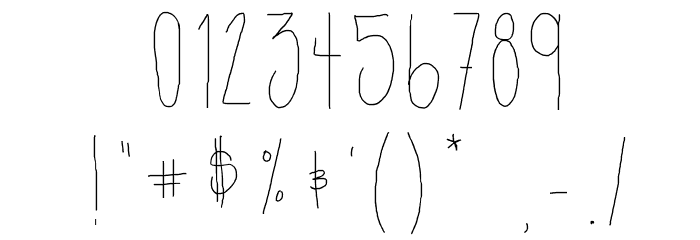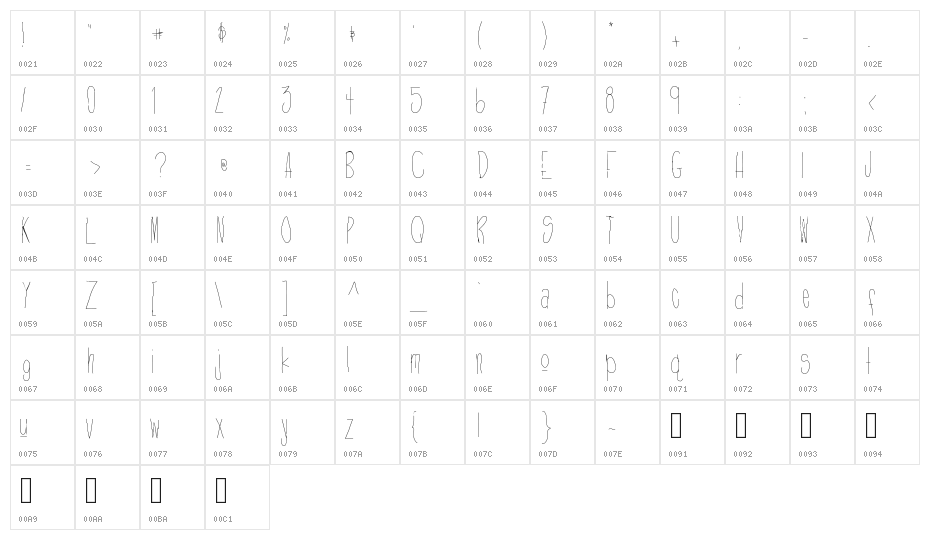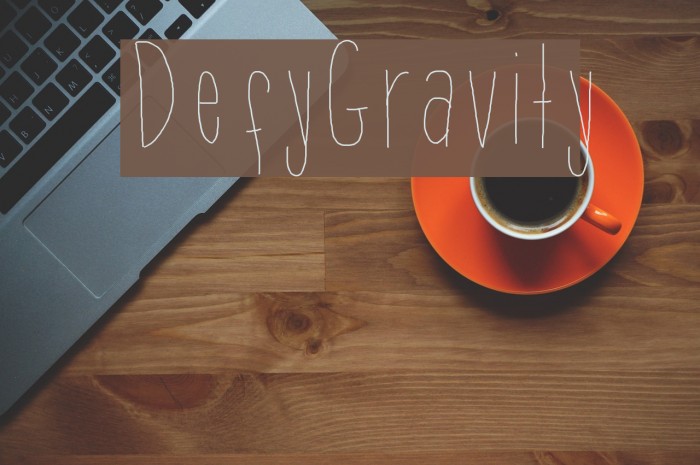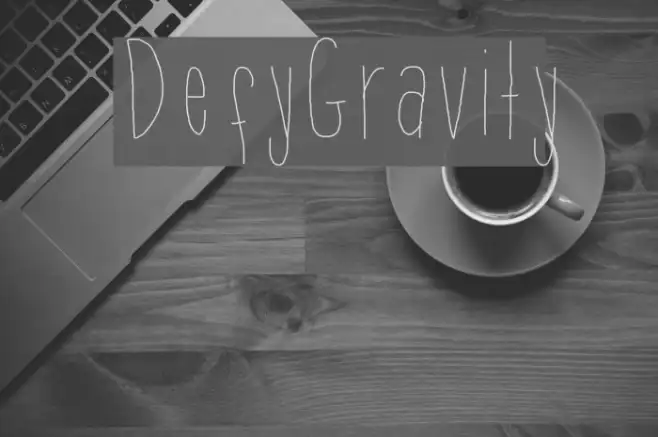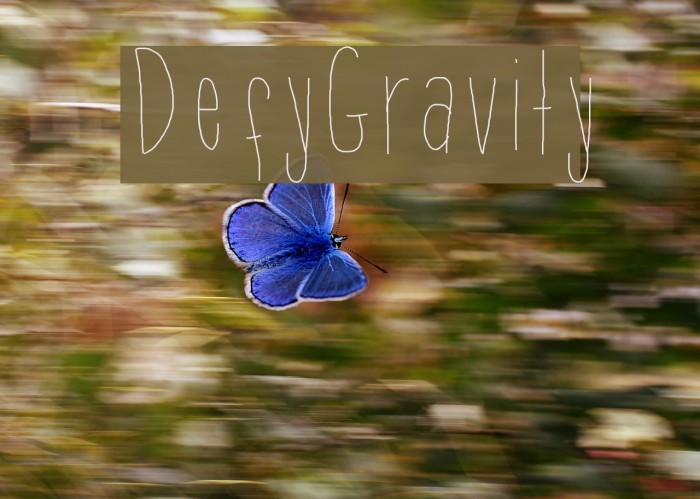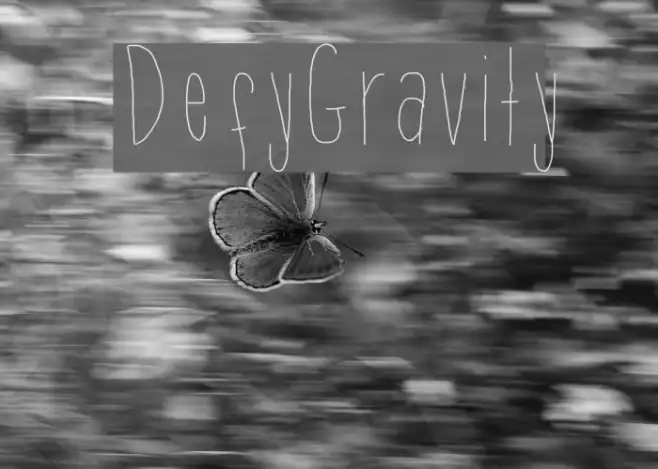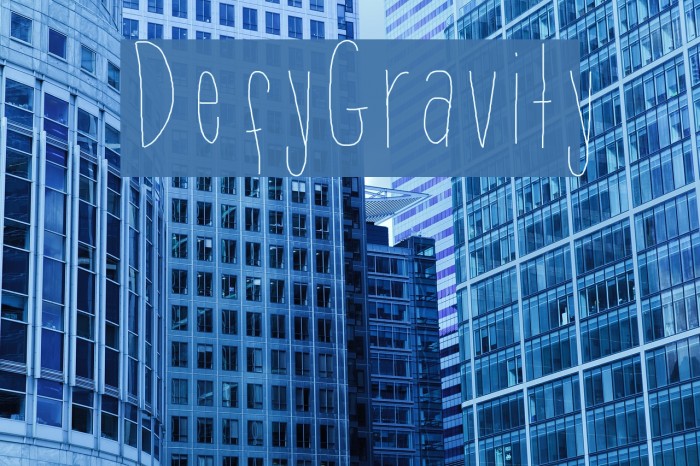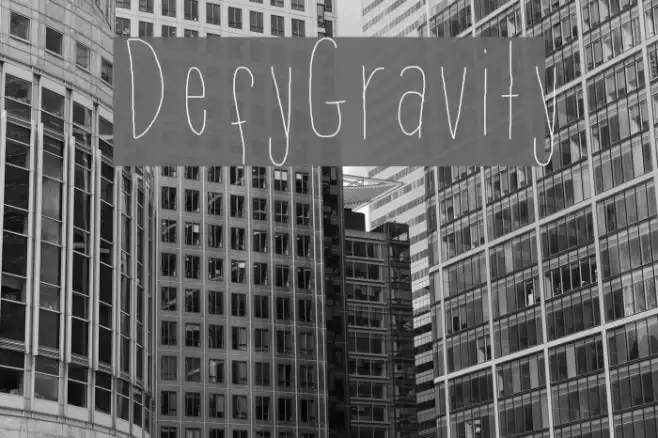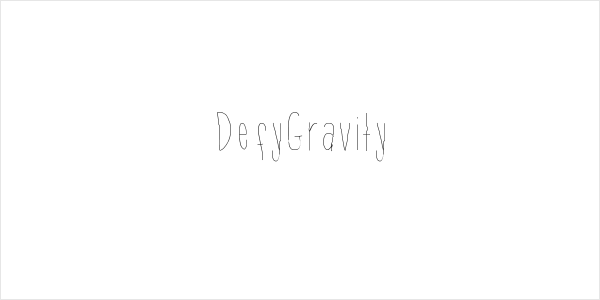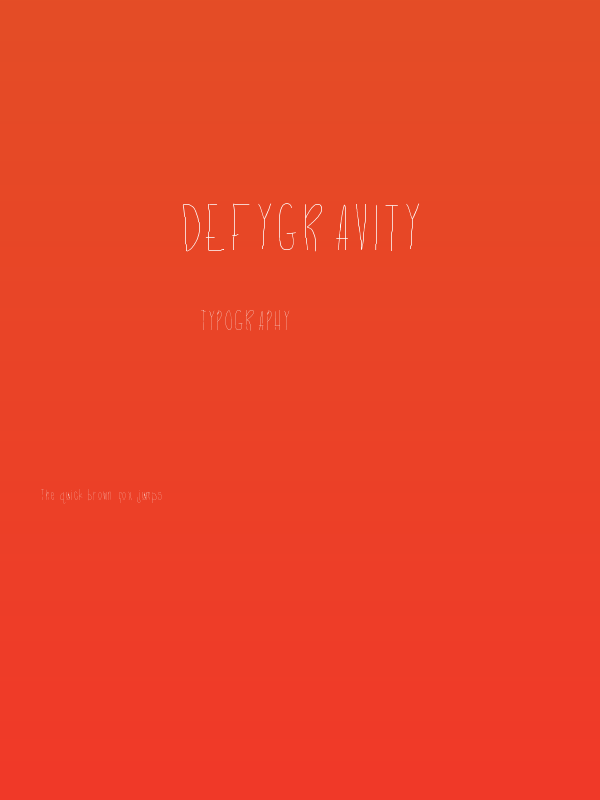
DefyGravity Font
DefyGravity Description
This font features a playful and whimsical design, characterized by its thin, elongated letterforms that give it a hand-drawn appearance. The strokes are uneven, adding a sense of spontaneity and charm. The uppercase letters are tall and narrow, while the lowercase letters maintain a consistent height, creating a harmonious balance. The numbers and special characters follow the same quirky style, making the font suitable for creative and informal projects. Its unique style is perfect for adding a touch of personality and fun to any design.
| Proposed Projects | Ideal for children's books, greeting cards, playful branding, and creative posters. |